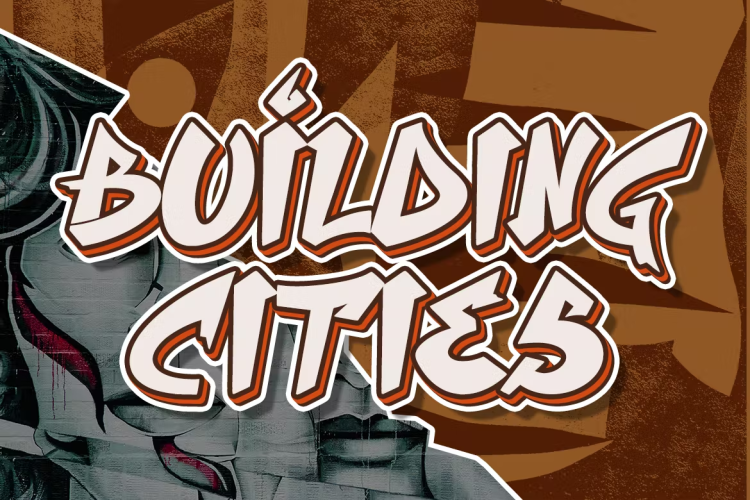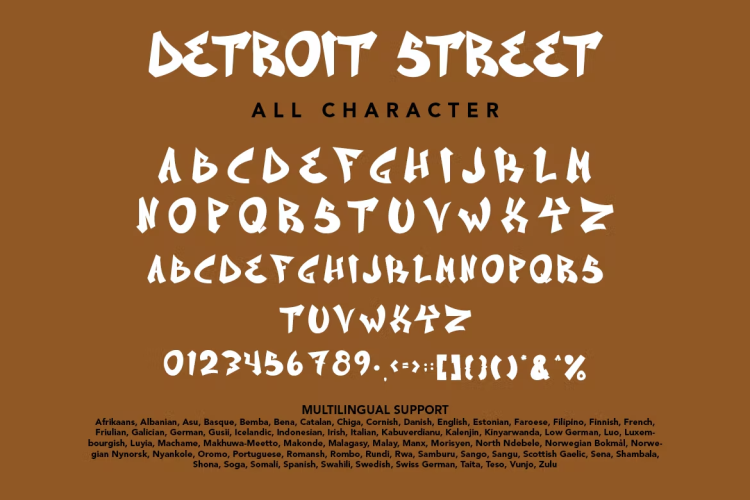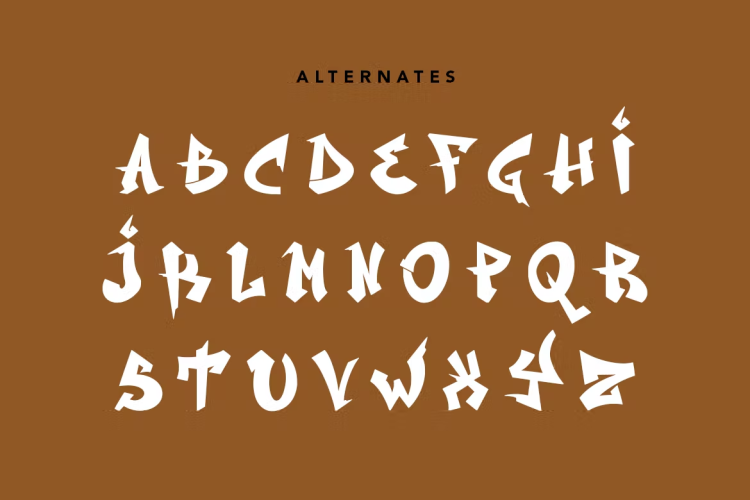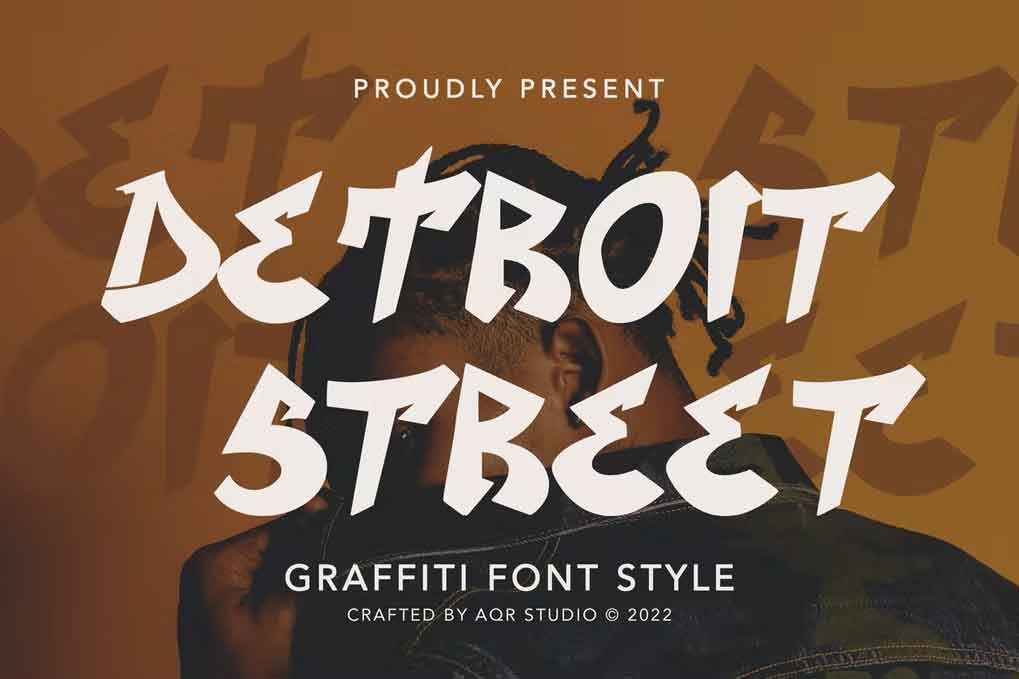
DetroitStreet Graffiti Font
DetroitStreet – Graffiti Font contains a lowercase, uppercase, symbol, and also supports multi-language. There’s a lot of ligature in this font. DetroitStreet – Graffiti Font also comes with ligatures, stylistic alternates and many more. this font suitable for fashion, branding, catalog and other design that you want.
DetroitStreet Graffiti Font is a Decorative Fonts font that brings a professional and versatile look to your projects. DetroitStreet – Graffiti Font contains a lowercase, uppercase, symbol, and also supports multi-language.